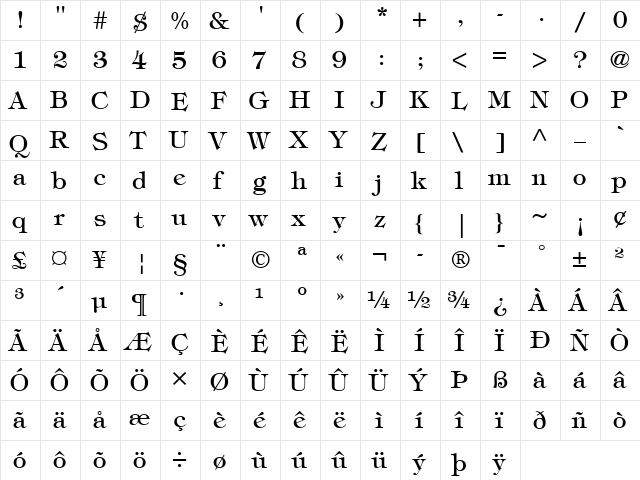
Tiffany LT Regular
Design Context for Tiffany LT Typeface
Tiffany LT takes a measured approach to typography — its balanced proportions and neutral character make it a reliable workhorse for both digital and print work. Its slender proportions lend an understated elegance to any composition.
Pro Tip: Use Tiffany LT in both headline and body roles to test its range before committing to a single application.